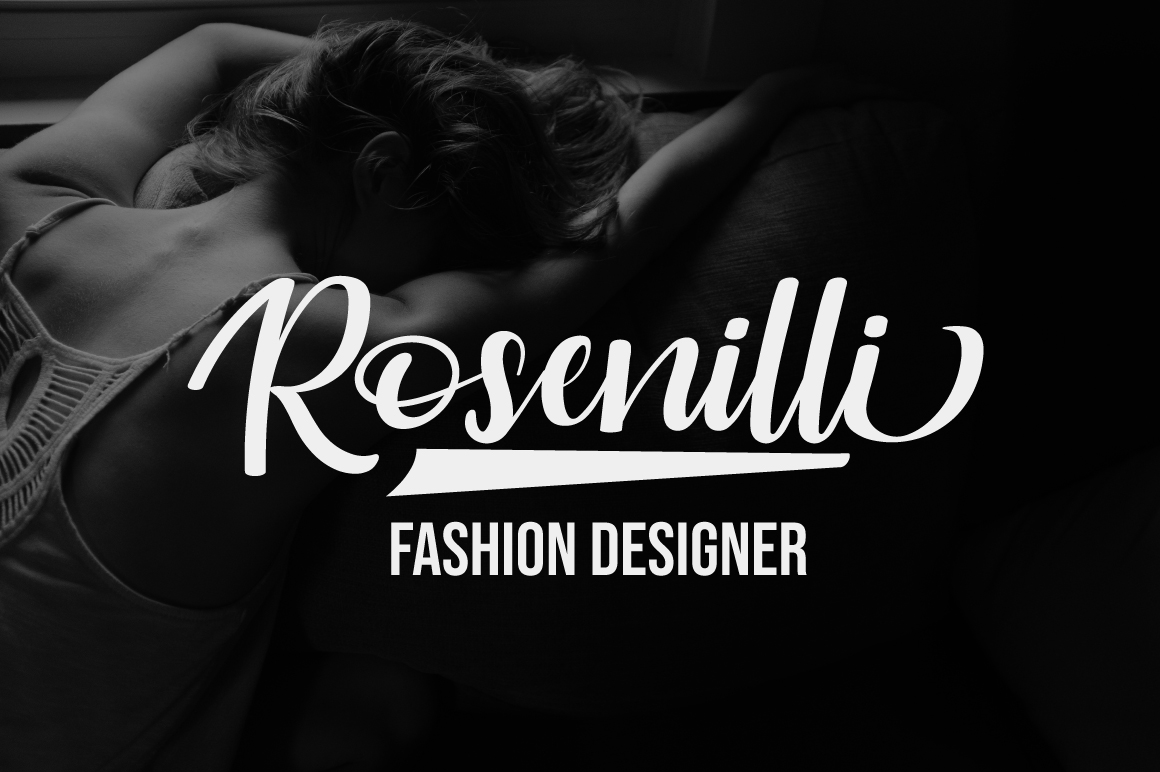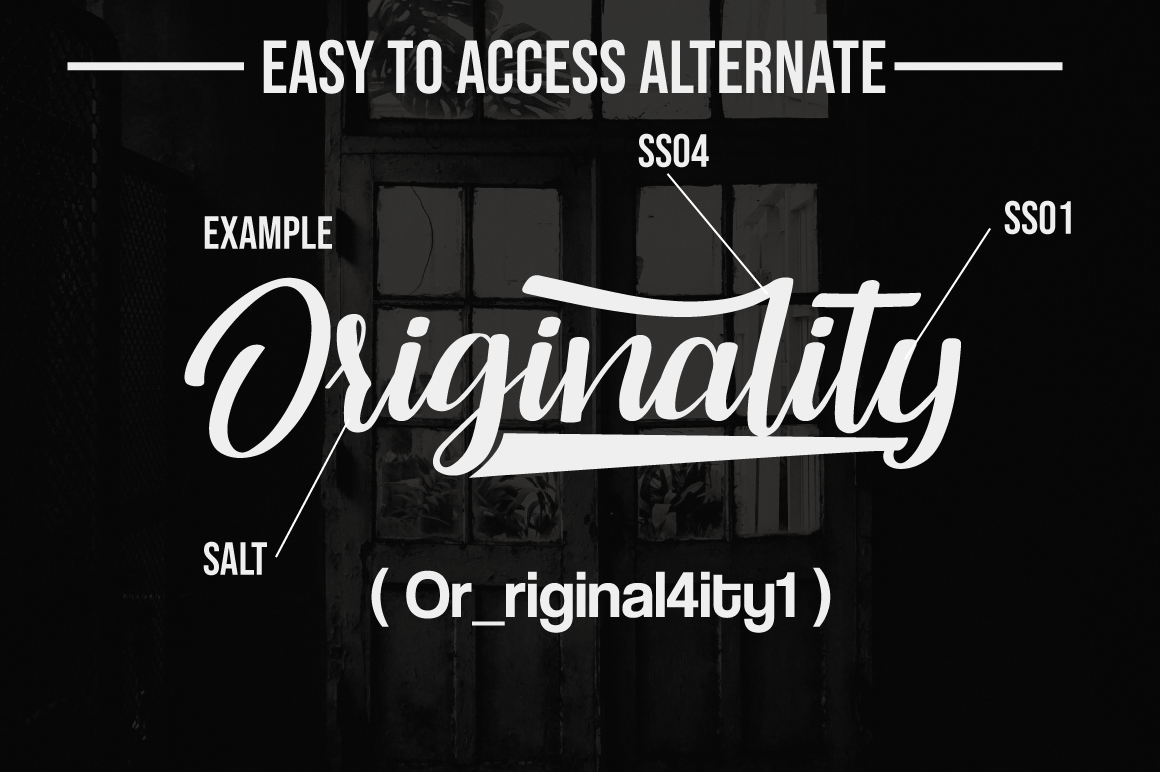
Digtta Script Font
Digtta Script Font by Fannan studio 12,985 downloads
Digtta Script Font
Digtta is an exquisite handwritten font, masterfully designed to become a true favorite. It maintains its classy calligraphic influences while feeling contemporary and fresh. Fall in love with it and bring your projects to the highest levels!